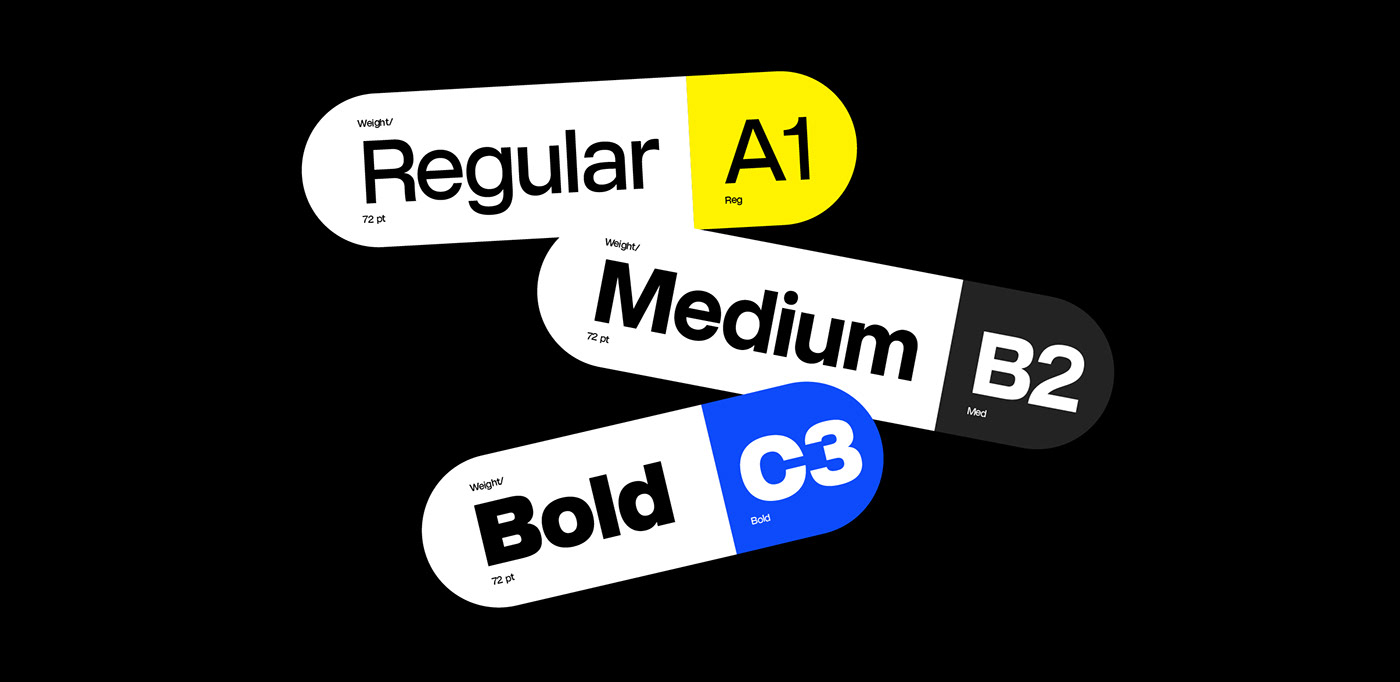
Oskari-G2® Versatile Typeface
Hanson Method™ shared their latest creation, a versatile typeface consisting of 3 weights name Oskari-G2®. Each with an individual character (no pun intended).
Inspired by the ubiquitous Helvetica and modern day tech company branding, Hanson Method™ decided to challenge themselves and add their own aesthetic to the ever growing list of typefaces now available. Give it a try, it's a complete bargain compared to other fonts produced by big font foundries. This is personal, raw and authentic. Oh, and no commercial license needed either, just to top it off.